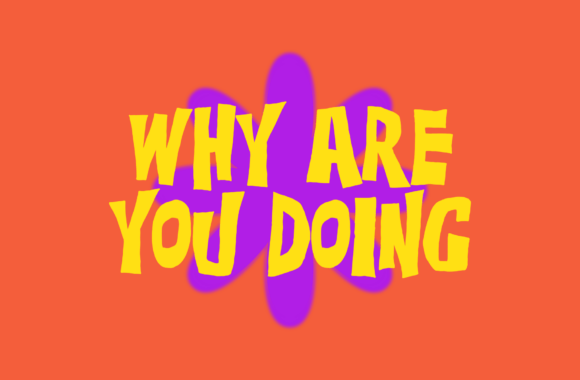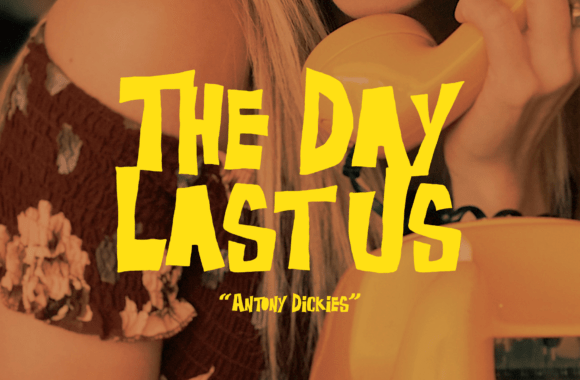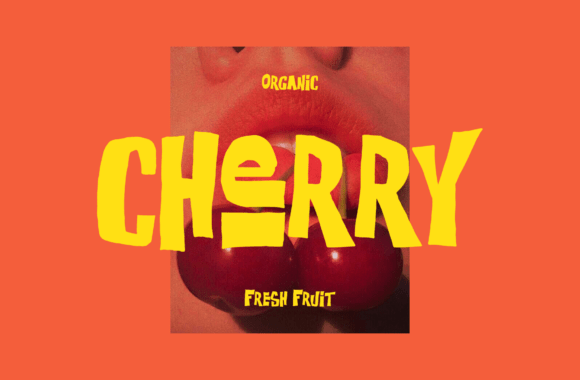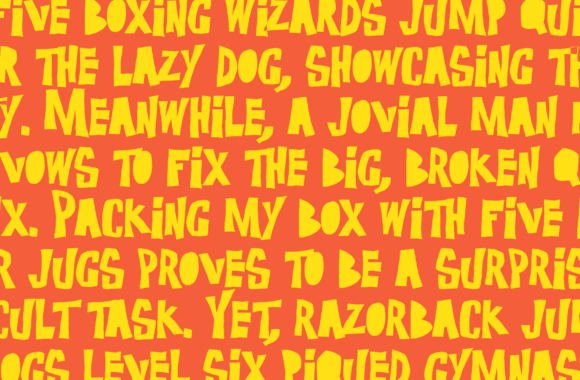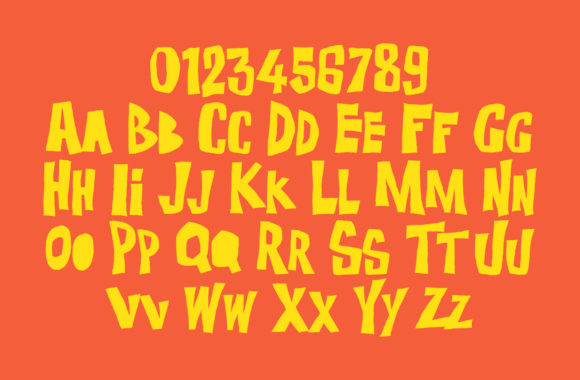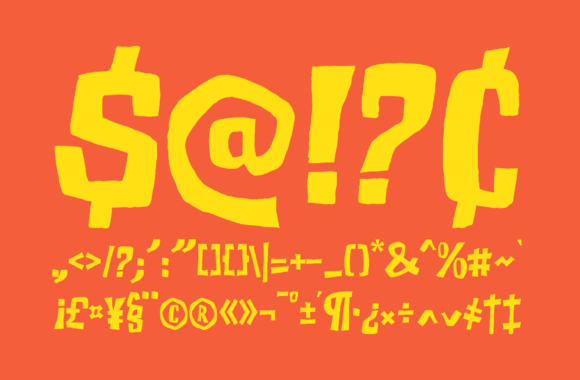
Introducing Gamaki: The New Playful Font That’s Making Waves in Design
In the world of typography, fonts are more than just a means to convey words; they’re an expression of style, emotion, and creativity. For designers, crafters, and anyone with a passion for visual storytelling, the right font can elevate a project from ordinary to extraordinary. That’s where Gamaki comes in – a bold and playful display typeface that’s about to become your new favorite companion for creating eye-catching headlines, branding, and posters.
The Charm of Gamaki: A Hand-Drawn, Irregular Aesthetic
Gamaki is not your average font. Its hand-drawn, irregular aesthetic gives it a unique personality that’s hard to ignore. The letters in Gamaki have an organic, slightly wobbly structure, which imparts a fun and energetic look to any design. This playful irregularity makes Gamaki stand out in a sea of more conventional typefaces, offering a refreshing alternative for designers looking to add a bit of whimsy to their work.
Key Features of Gamaki: Thick Strokes and Uneven Baseline
So, what makes Gamaki so special? Two of its key features are its thick strokes and uneven baseline. These elements combine to create a font that’s not only visually striking but also highly versatile. The thick strokes give Gamaki its bold presence, making it perfect for headlines and titles that need to grab attention. Meanwhile, the uneven baseline adds to the font’s playful, dynamic feel, giving it a casual, lively vibe that’s reminiscent of vintage cartoon lettering or signage.
Perfect for Eye-Catching Headlines, Branding, and Posters
Given its characteristics, Gamaki is ideally suited for projects that require a strong visual impact. Whether you’re working on a poster, a branding campaign, or simply a social media graphic, Gamaki can help you create eye-catching headlines that draw viewers in. Its bold and playful nature makes it a great fit for projects aimed at a younger audience or for any design that could benefit from a bit of personality and flair.
The Exaggerated Proportions and Rough Edges of Gamaki
One of the defining features of Gamaki is its exaggerated proportions and rough edges. These elements contribute significantly to its casual, lively feel, setting it apart from more traditional fonts. The rough edges give Gamaki a hand-crafted look, as if each letter was drawn individually with a marker or brush. This not only adds to the font’s charm but also makes it highly effective for creating designs that feel approachable and friendly.
Reminiscent of Vintage Cartoon Lettering or Signage
Gamaki’s design is heavily influenced by vintage cartoon lettering and signage, which is evident in its playful and somewhat quirky aesthetic. For designers and crafters who grew up watching cartoons or have a fondness for retro-style signs, Gamaki will likely strike a chord. It brings a nostalgic feel to modern designs, making it an excellent choice for projects that aim to evoke a sense of nostalgia or playfulness.
How to Use Gamaki in Your Designs
Using Gamaki in your designs is straightforward, but here are a few tips to get the most out of this playful font:
- Pair it with simpler fonts: For body text, pair Gamaki with a simpler, more readable font to create contrast and ensure your message is easily understood.
- Experiment with colors: Gamaki looks great in bold, bright colors. Don’t be afraid to experiment with different hues to find the perfect match for your design.
- Play with sizes: Take advantage of Gamaki’s bold presence by using it in various sizes. Larger text can be used for headlines, while smaller sizes can add a playful touch to supporting text.
Gamaki is more than just a font – it’s a design statement. With its bold and playful display typeface, hand-drawn aesthetic, and energetic vibe, Gamaki is set to become a favorite among designers and crafters looking to add a bit of fun and whimsy to their projects. Whether you’re creating eye-catching headlines, branding materials, or posters, Gamaki offers a unique combination of style and versatility that’s hard to find elsewhere. So why not give Gamaki a try and see how it can elevate your designs?